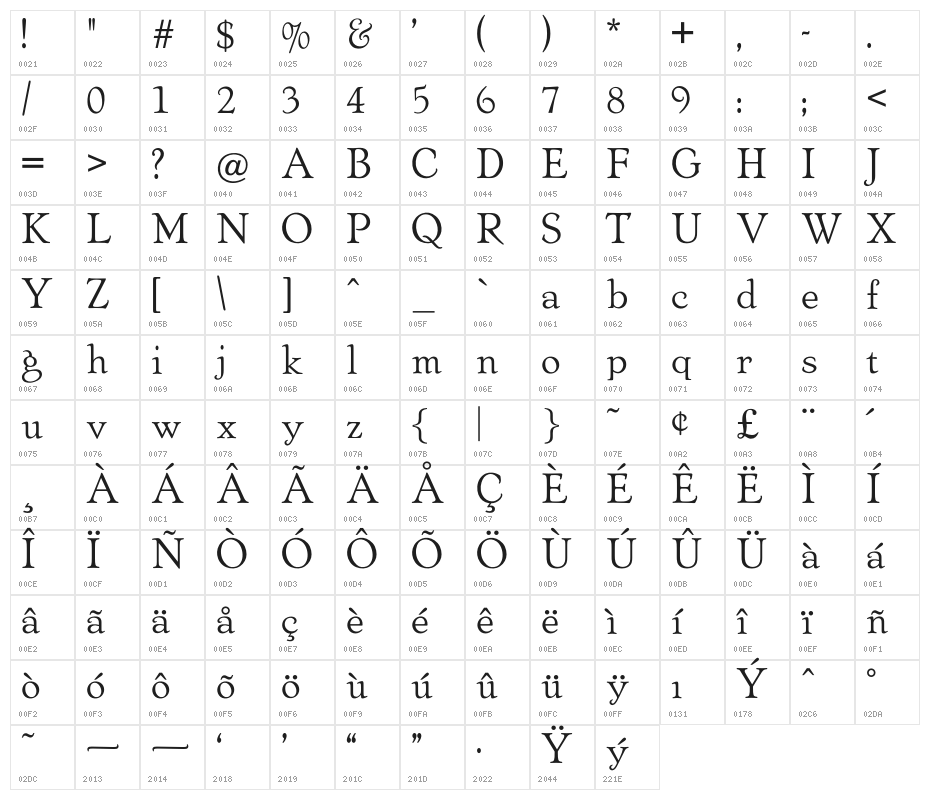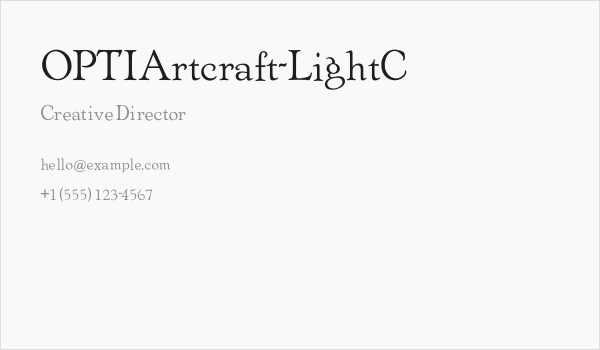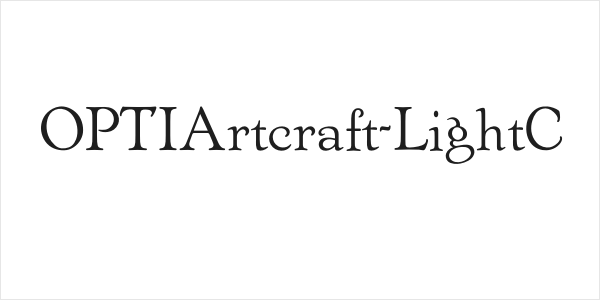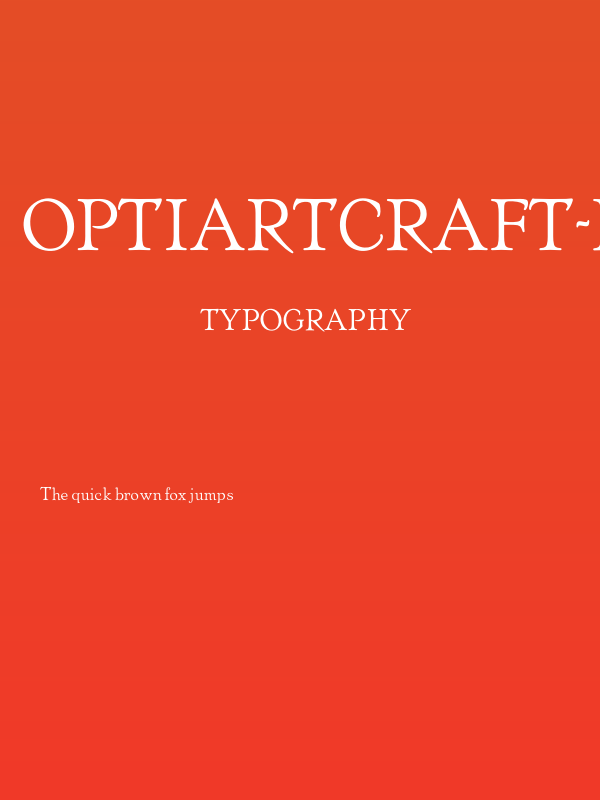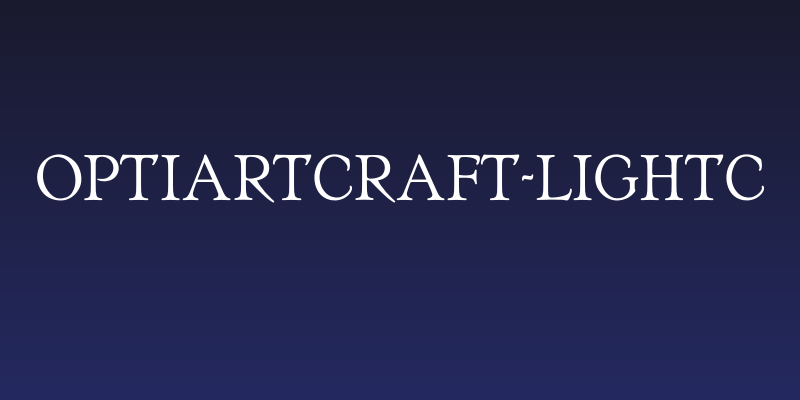
OPTIArtcraft-LightC Font
OPTIArtcraft-LightC Description
This font exhibits a classic serif style with elegant and refined strokes. The uppercase letters are well-proportioned, featuring subtle serifs that add a touch of sophistication. The lowercase letters maintain a consistent style, with a graceful flow and slightly rounded edges that enhance readability. Numbers are clear and distinct, matching the overall aesthetic of the alphabet. Special characters are thoughtfully designed, ensuring they complement the font's traditional appearance. The font's light weight contributes to its airy and delicate feel, making it suitable for formal and elegant applications.
| Proposed Projects | Ideal for wedding invitations, formal documents, and elegant branding projects. |